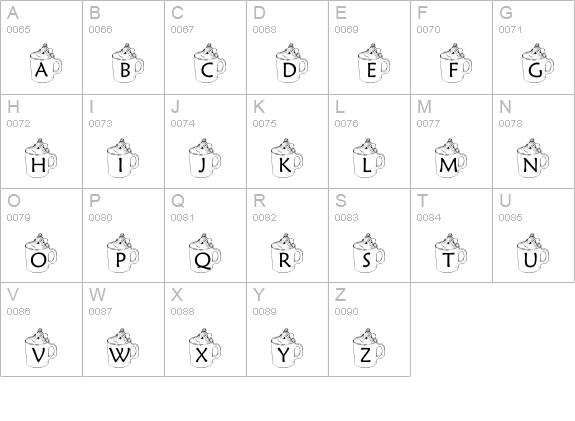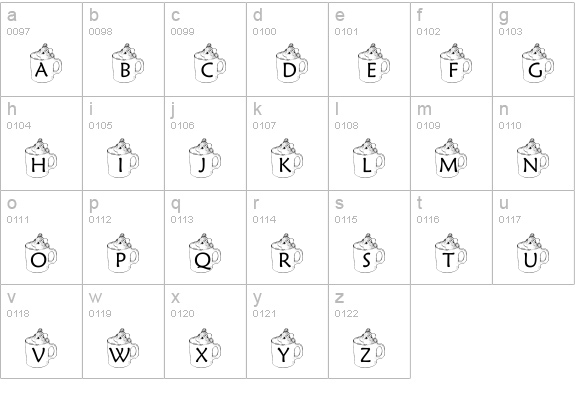
pf_mouse_cup1 Font Details
Introducing pf_mouse_cup1, a remarkable font that combines elegance, versatility, and a touch of playfulness. This stunning typeface is perfect for adding a unique aesthetic to any design project. Whether you're creating captivating logos, eye-catching headlines, or engaging social media posts, pf_mouse_cup1 is sure to make a lasting impression. With its sleek lines and carefully crafted curves, pf_mouse_cup1 effortlessly captures the essence of modern design while maintaining a sense of whimsy. Each character is meticulously designed, ensuring a seamless and visually pleasing reading experience. The font's versatility allows it to adapt to a wide range of styles and themes, making it an ideal choice for both professional and personal projects. One of the most enticing aspects of pf_mouse_cup1 is that it is freely available to download at FontsMarket.com. This means that you can enjoy the beauty and functionality of this font without any cost. Whether you're a seasoned designer or just starting out, having access to high-quality fonts like pf_mouse_cup1 can greatly enhance your creative endeavors. So why wait? Embrace the possibilities that pf_mouse_cup1 offers and elevate your designs to new heights. Download this exceptional font today and embark on a journey of endless creativity. With pf_mouse_cup1, the only limit is your imagination.